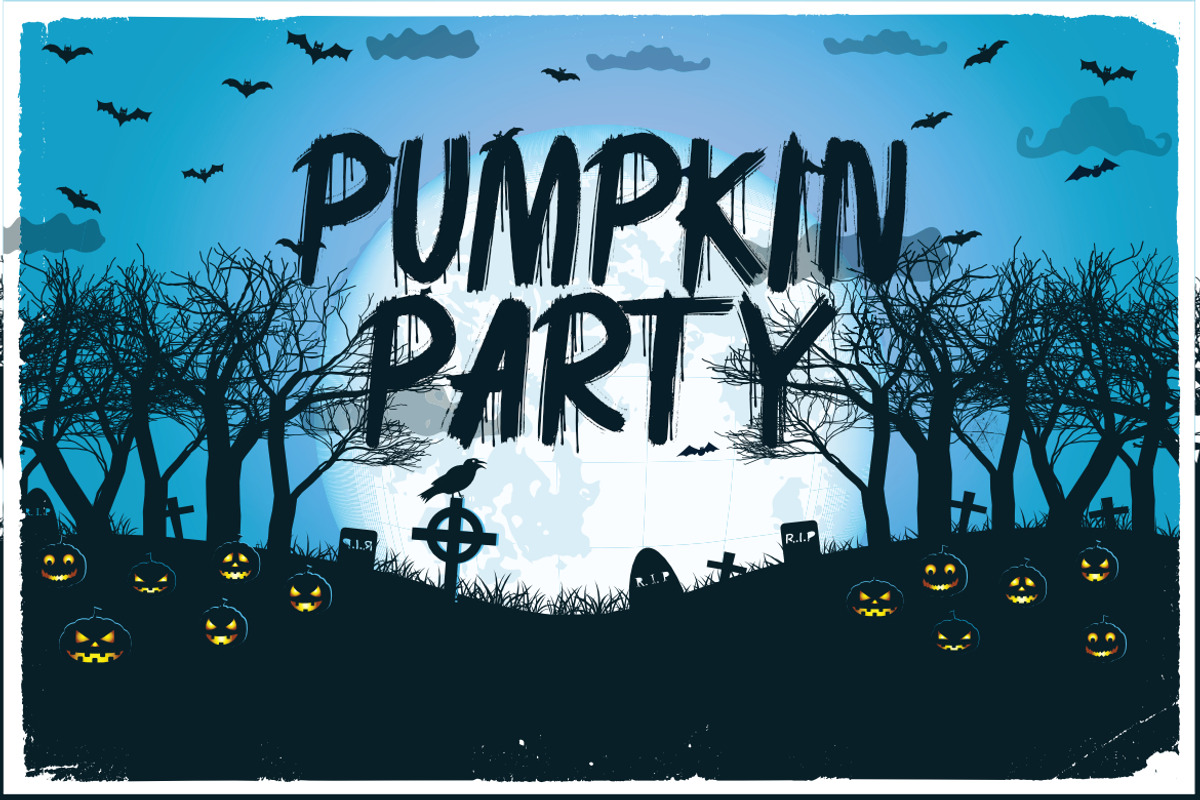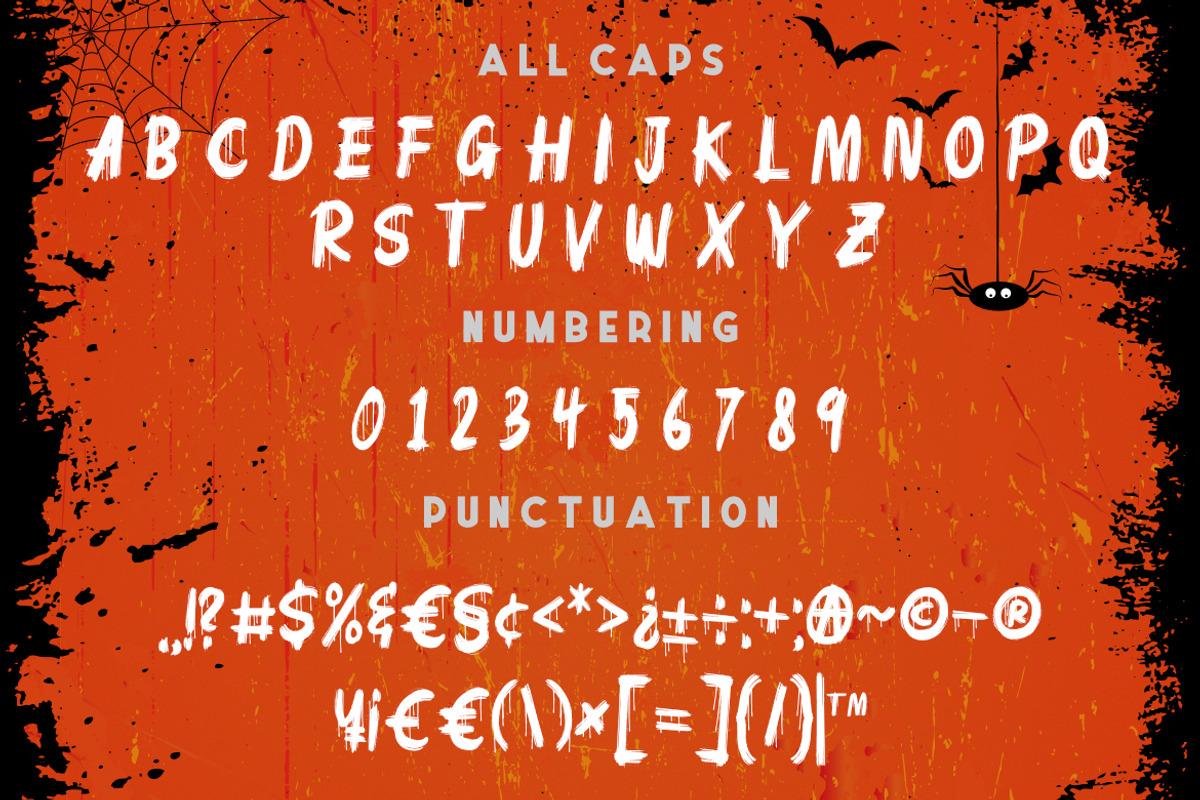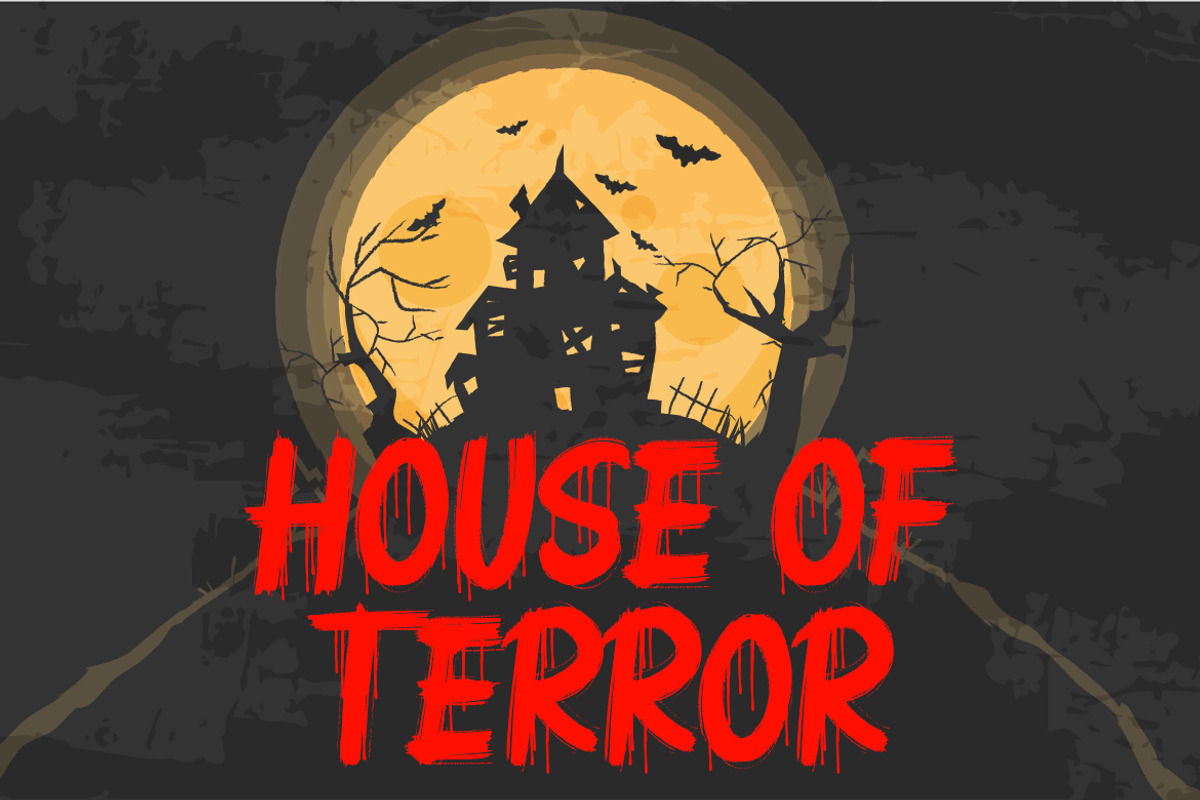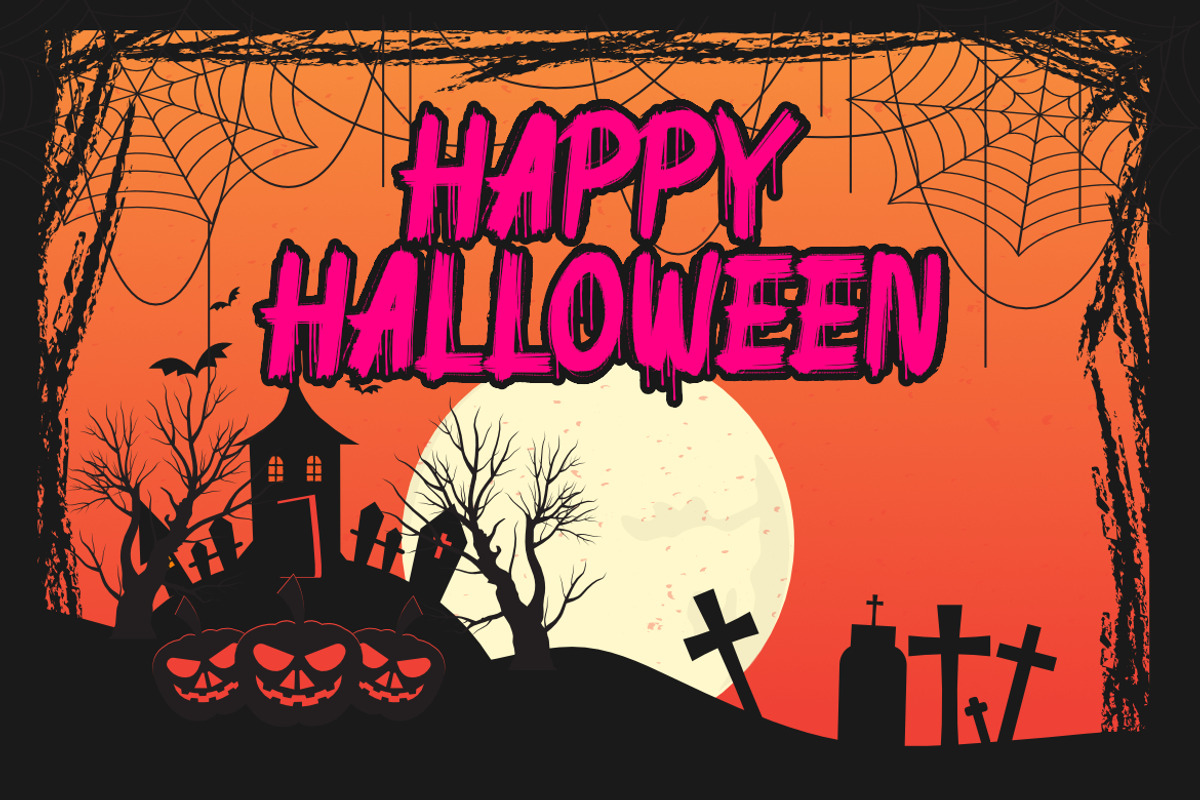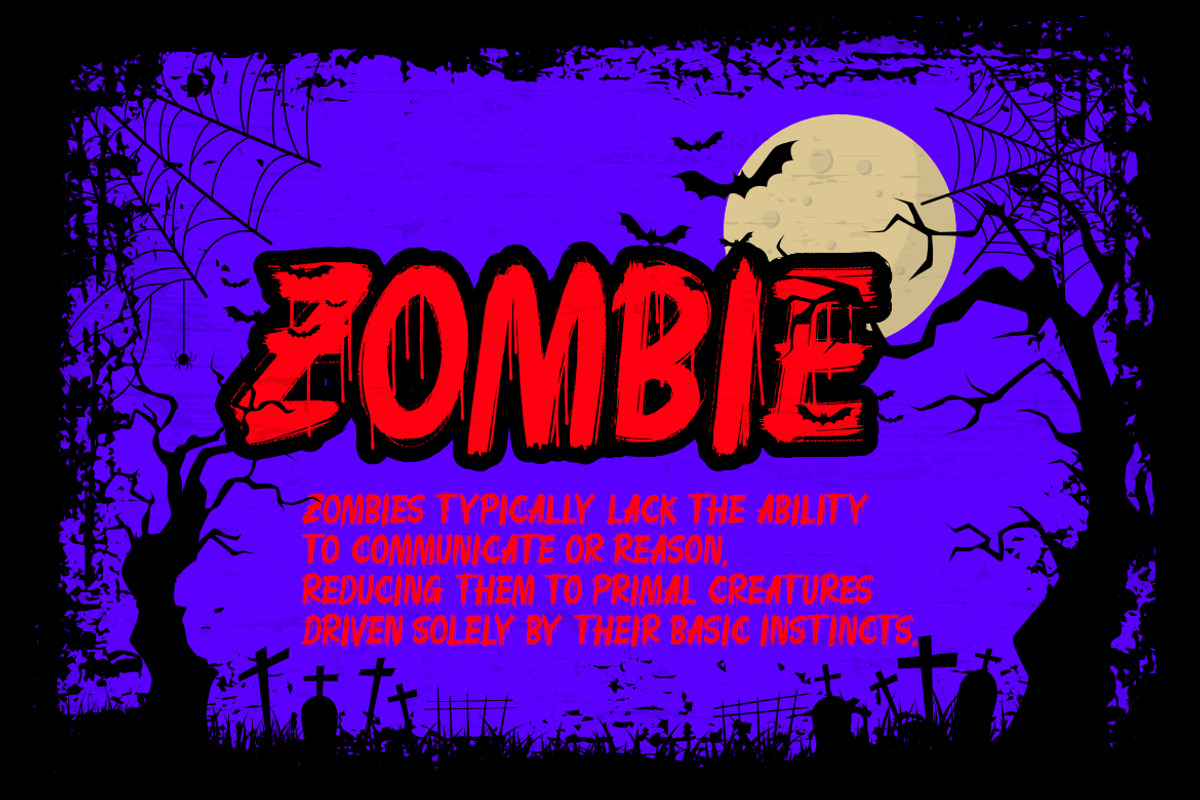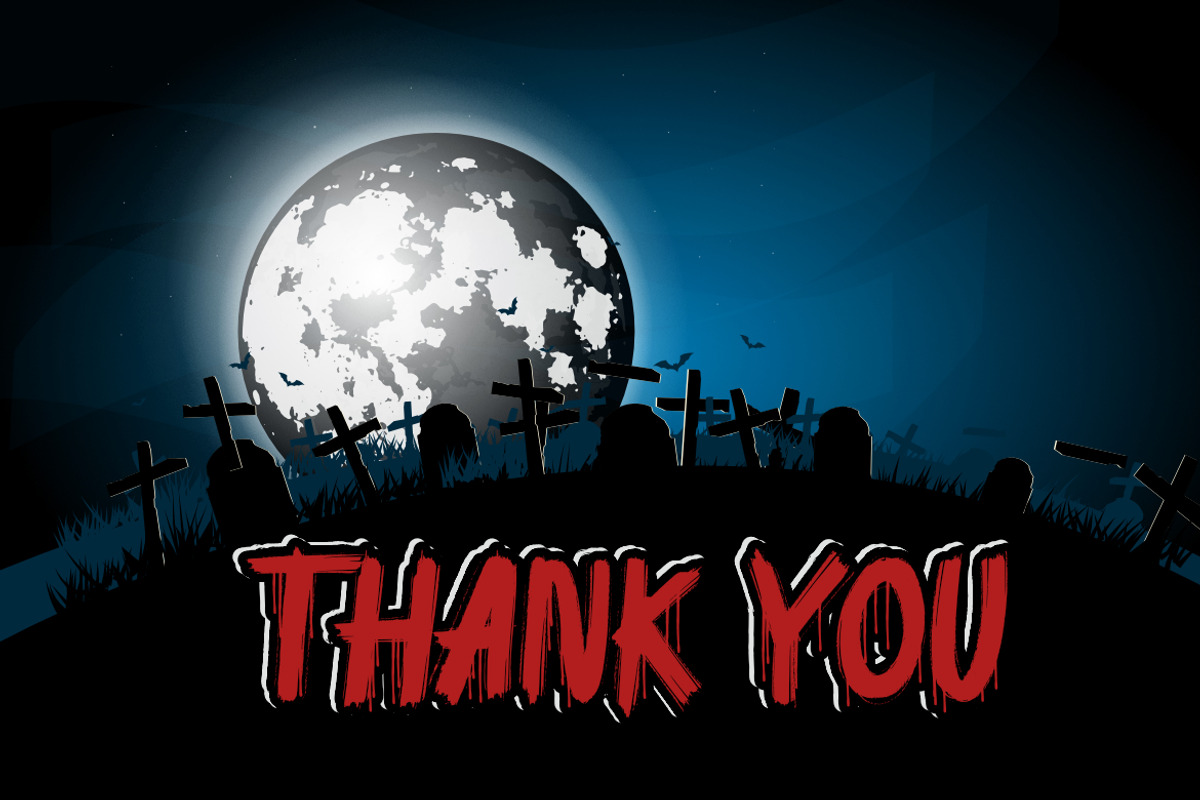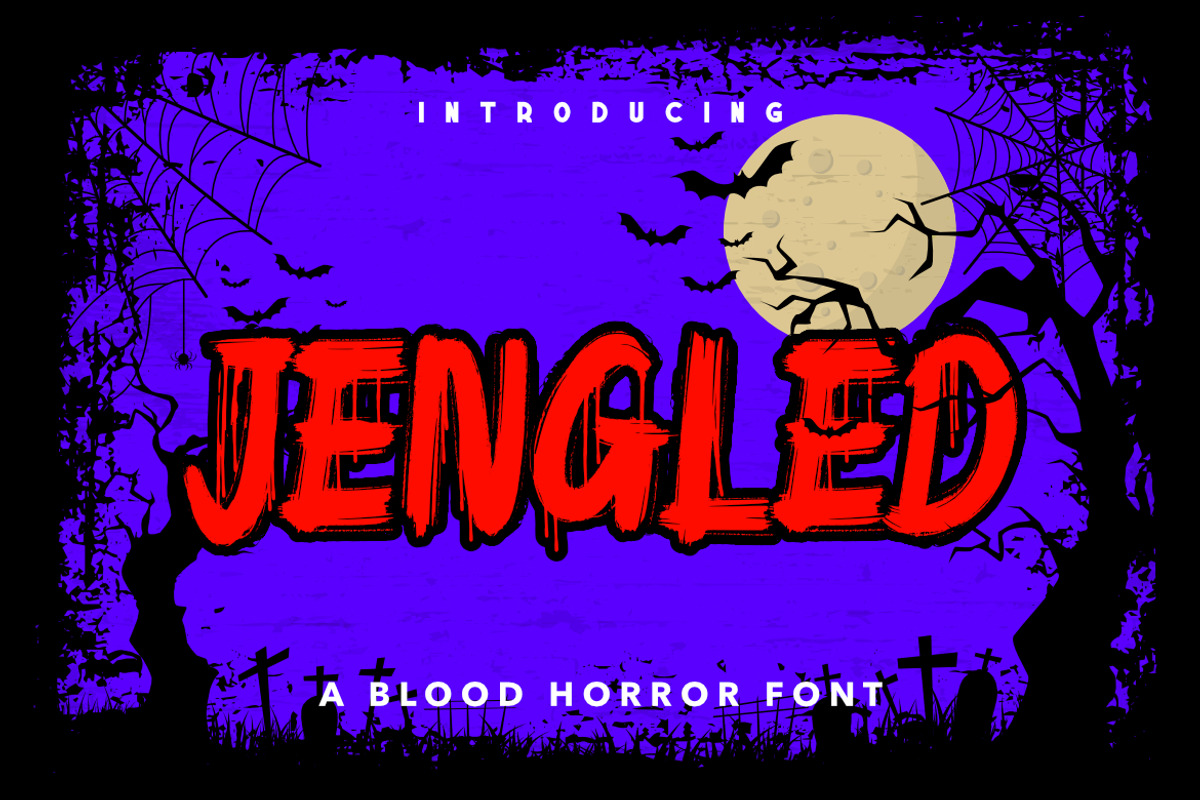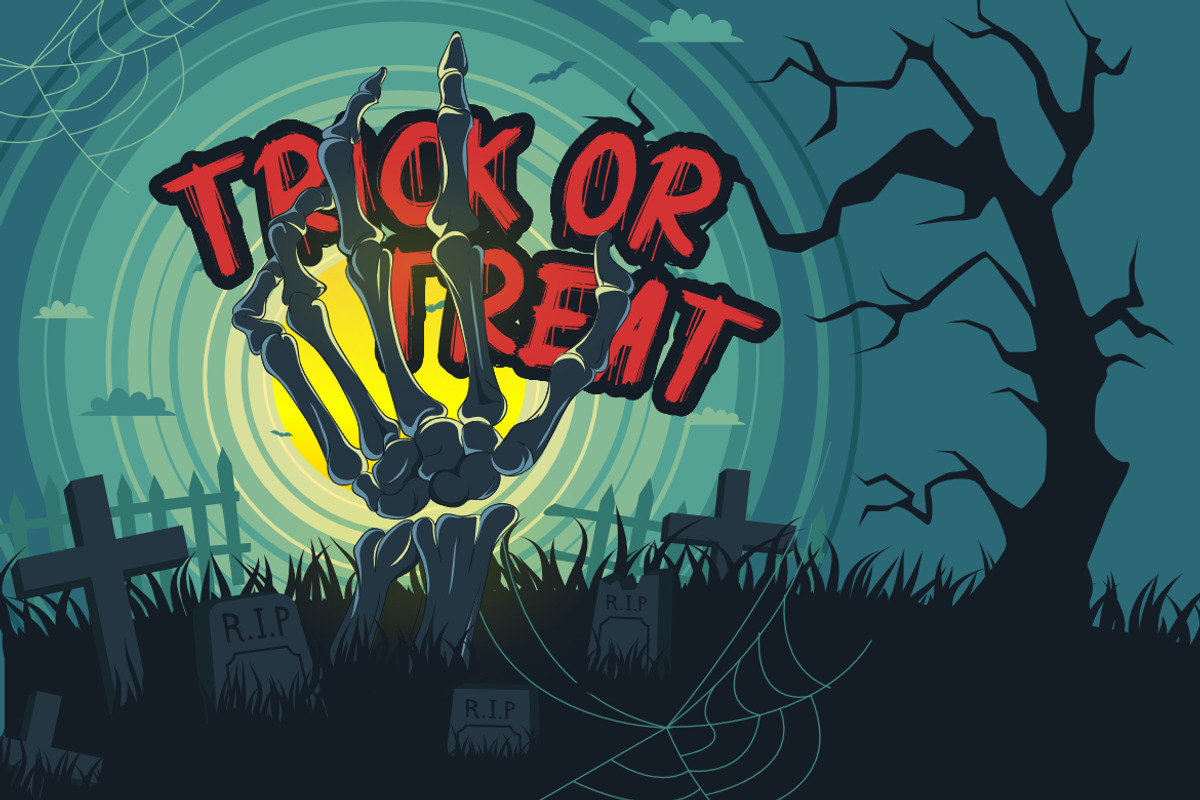
Jengled a Blood Horror Font
Jengled a Blood Horror Font, This font is made with a high premium quality level which you can use as flyers, quotes, posters, banners, packaging, merchandise, logotypes and much more.